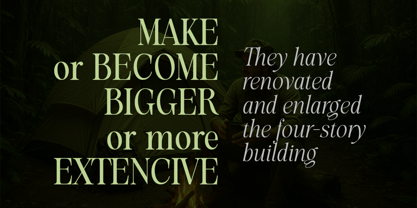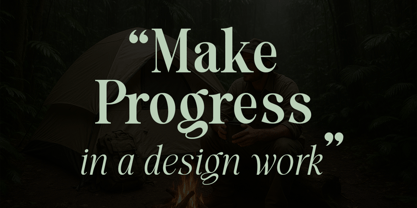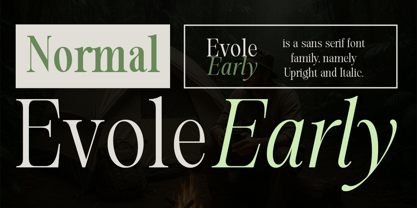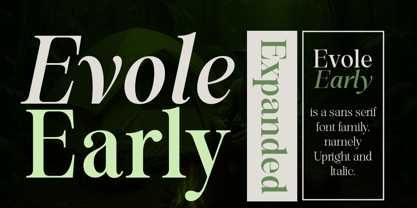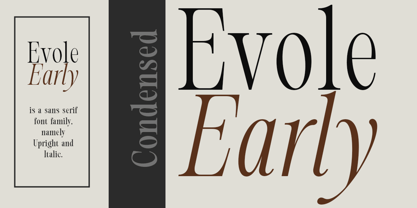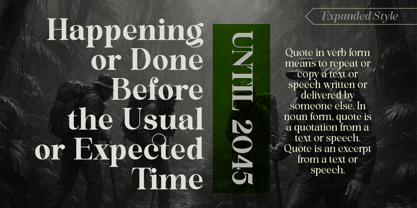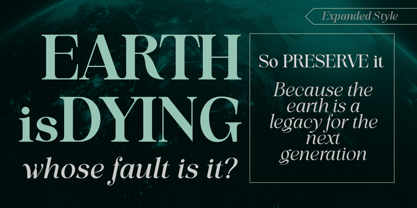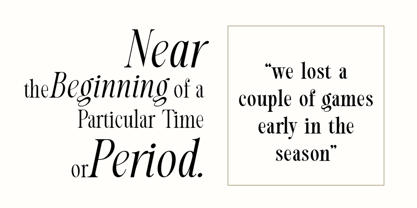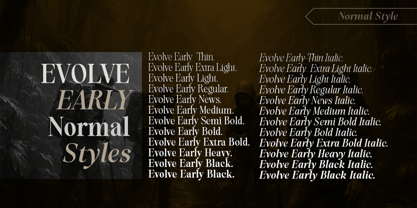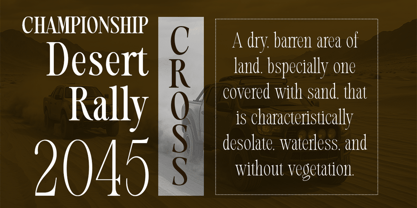
Evolve Early
The Evolve Early Font Family was designed by Sai Poel and published by Groen Studio. Evolve Early contains 72 styles. More about this family
Evolve Early has the perfect balance between the familiar and the unexpected. With Evolve Early, designers can use this font for a variety of needs in creating elegant design works.
Please note, Evolve Early is a bold and expressive serif family font that adorns the pages of top fashion magazines and publications in print media and web pages. Evolve Early flows with a vintage charm that supports contemporary designs.
Evolve Early is a variation characterized by soft flexibility in the glyph character section, a serif family font that has 3 categories, namely Normal (12 regular fonts and 12 italics); Consended (12 regular fonts and 12 italics); and Expended (12 regular fonts and 12 italics). So a total of 72 font variations.
Evolve Early looks amazing in logos, magazines, and films. This font will be perfect for branding, headlines, captions, paragraphs, and posters. Various weights allow you to experiment with various applications. This font is made to make an impression without sacrificing its beauty and readability.